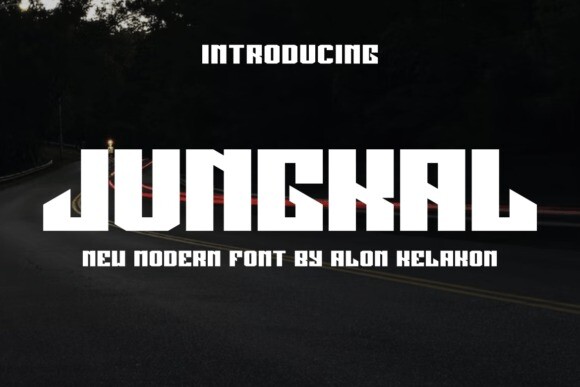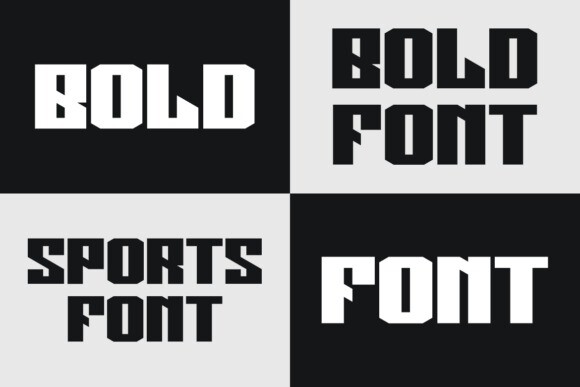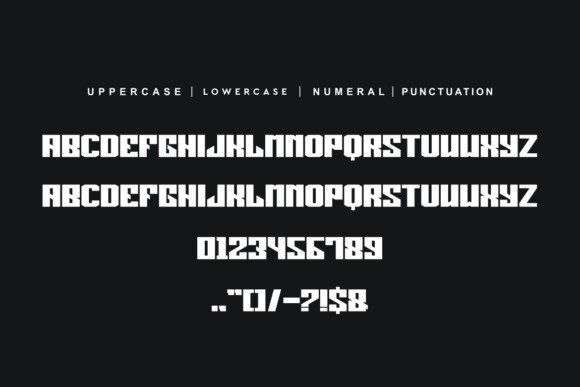
Jungkal Font
Jungkal Font is a unique display font with bold characters. Ready to use for your design like labeling, clothing, movie scenes, posters, movie titles, gigs, album covers, logos, and much more.